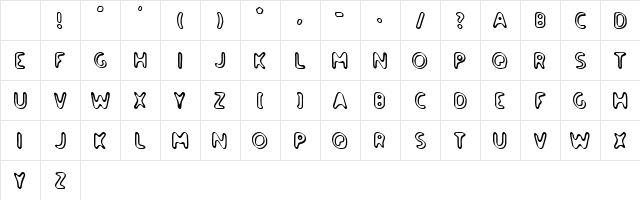
Complete Paradise Road Outline glyph index. Displaying only characters natively supported by Paradise Road Outline font.
Paradise Road is built around its visual character rather than neutral utility - its distinctive forms are designed to make an impression at display sizes.
Font Pairing: Pair with a clean neutral sans-serif for body copy to let Paradise Road's character lead without overwhelming the composition.
Pro Tip: Use Paradise Road exclusively at display sizes - it was designed to be seen, not read at length. Let a neutral companion handle body copy.